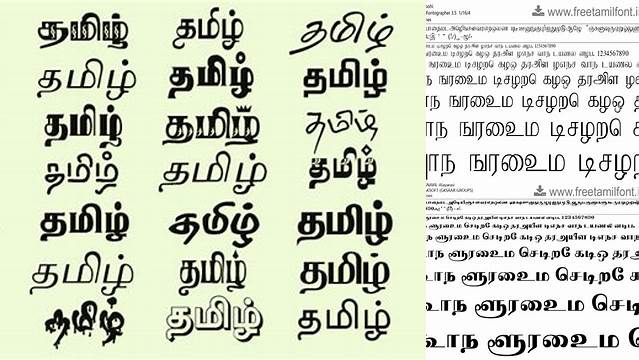
Are you looking to add a unique and stylish touch to your Tamil writing? Look no further! In this comprehensive guide, we'll explore the world of Tamil fancy fonts and how you can download them for free. Whether you're a designer, student, or simply someone who loves the beauty of the Tamil script, this article will provide you with valuable resources and information. Let's dive in and discover the perfect font to elevate your Tamil creations.
Why Use Fancy Fonts for Tamil Writing?
Tamil fancy fonts can dramatically enhance the visual appeal of your text. Unlike standard fonts, these fonts incorporate unique design elements, stylistic flourishes, and artistic touches that make your writing stand out. Using fancy fonts in your Tamil projects can help you convey a specific mood, emphasize important information, or simply add a personal touch to your work.
Imagine you're designing a poster for a cultural event. A bold, ornate Tamil font can capture the essence of tradition and celebration. Or, if you're creating a logo for a modern business, a sleek and stylish font can convey professionalism and innovation. The possibilities are endless!
Benefits of Using Fancy Fonts
- Enhanced Visual Appeal: Fancy fonts make your text more attractive and engaging.
- Improved Readability: Some fancy fonts are designed to improve readability while maintaining a unique style.
- Unique Expression: Fancy fonts allow you to express your personality and creativity through your writing.
- Professional Look: Using the right fancy font can give your projects a polished and professional appearance.
- Cultural Significance: Many Tamil fancy fonts incorporate traditional design elements, connecting your work to the rich heritage of the Tamil language.
By incorporating fancy fonts into your Tamil writing, you can transform ordinary text into captivating visual art. Whether you're working on a personal project or a professional design, the right font can make all the difference. So, how do you find these amazing fonts? Let's explore the world of free downloads!
Font Squirrel: Font Squirrel is another excellent resource for free, high-quality fonts, including a selection of Tamil fonts. Font Squirrel is known for its curated collection of fonts, ensuring that all fonts available on the site are of the highest quality. The site also offers a useful font identifier tool, allowing you to upload an image of a font and find matching or similar fonts. This can be incredibly helpful if you've seen a font you like but don't know its name.
Font Squirrel's selection of Tamil fancy fonts includes a variety of styles, from elegant scripts to bold display fonts. The site's user-friendly interface makes it easy to browse and download fonts, and the fonts are available for both personal and commercial use. Font Squirrel also provides detailed licensing information for each font, so you can be sure you're using the fonts in compliance with their terms of use. This transparency is a significant advantage, especially for commercial projects where licensing is a critical consideration.
In addition to its font collection, Font Squirrel offers a range of helpful resources for designers, including articles, tutorials, and a font generator tool. These resources can help you make the most of your fonts and create stunning designs. Whether you're a seasoned designer or just starting out, Font Squirrel provides valuable tools and information to enhance your font-related projects.